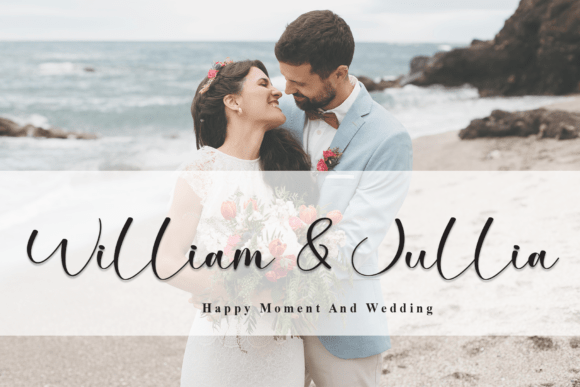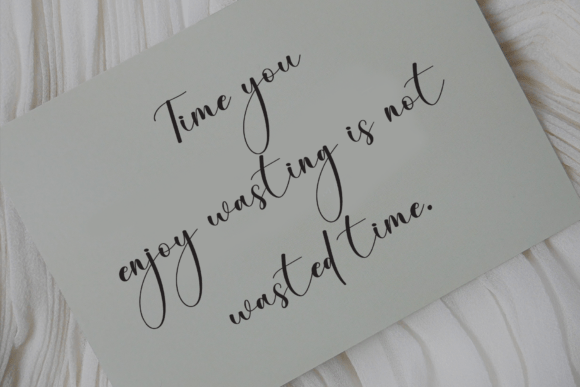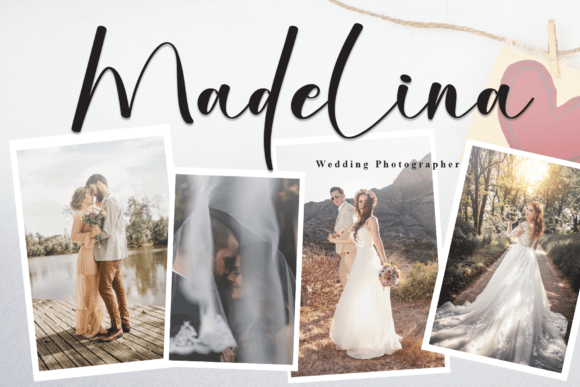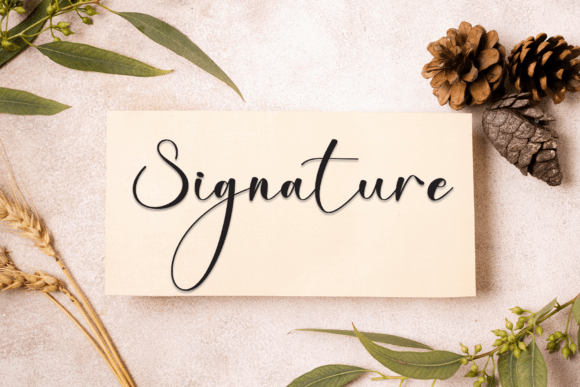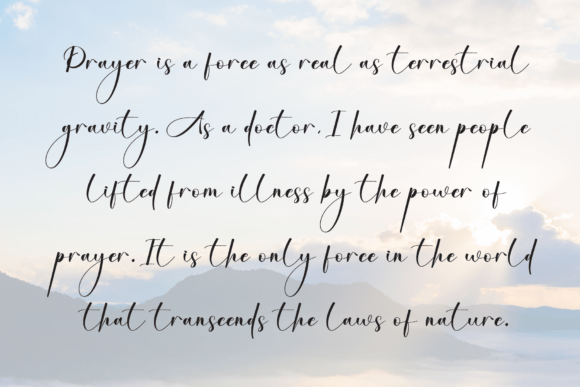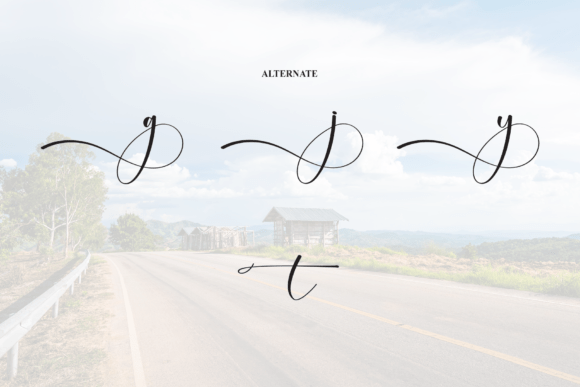
Introducing Country Font: Elevate Your Designs with Rustic Charm and Refined Aesthetics
In the world of typography, a font can make all the difference in conveying the tone and personality of a brand or design. For those seeking a unique and captivating script font that embodies the perfect blend of rustic charm and refined aesthetics, look no further than Country Font. This modern handwritten script font is designed to bring a touch of elegance and sophistication to any design project, making it an ideal choice for designers and crafters alike.
What Makes Country Font Stand Out?
Country Font boasts an array of distinctive features that set it apart from other script fonts. Its long, sweeping swashes and elegant flourishes give it a dynamic, graceful look that’s perfect for large-format applications where style matters. The font’s tall x-height and signature-style flow add to its refined appearance, making it suitable for a wide range of design projects.
One of the key benefits of Country Font is its full glyph support, including alternates and ligatures. This means that designers have complete creative control over their typography, allowing them to customize their designs with ease. Whether you’re working on a logo, poster, or wedding stationery, Country Font provides the flexibility and versatility you need to bring your vision to life.
Country Font’s unique blend of rustic charm and refined aesthetics makes it an excellent choice for a variety of design applications. Some of the most popular uses for this font include:
- Logos: Country Font’s elegant and sophisticated appearance makes it perfect for boutique brands looking to establish a strong visual identity.
- Posters: The font’s long swashes and flourishes make it ideal for eye-catching posters and flyers that demand attention.
- Country-style Merchandise: Country Font’s rustic charm and country-chic vibe make it a natural fit for merchandise such as t-shirts, mugs, and tote bags.
- Wedding Stationery: The font’s elegant and refined appearance makes it perfect for wedding invitations, save-the-date cards, and other stationery.
- Farmhouse Decor: Country Font’s rustic charm and vintage aesthetic make it an excellent choice for farmhouse decor, including signs, labels, and other home decor items.
PUA-Encoded for Effortless Customization
Country Font is PUA-encoded, ensuring effortless access to all glyphs, swashes, and alternate characters. This means that designers can easily customize their designs without having to navigate complex font menus or rely on external tools. With Country Font, you can focus on bringing your creative vision to life, rather than struggling with technical limitations.
Why Choose Country Font?
So why choose Country Font over other script fonts? Here are just a few reasons why designers and crafters love this font:
- Unique and Captivating: Country Font’s distinctive appearance sets it apart from other script fonts, making it perfect for designers looking to create unique and eye-catching designs.
- Versatile: The font’s flexibility and customizability make it suitable for a wide range of design applications, from logos and posters to wedding stationery and farmhouse decor.
- Elegant and Refined: Country Font’s elegant and refined appearance makes it perfect for designers looking to add a touch of sophistication to their designs.
- Rustic Charm: The font’s rustic charm and country-chic vibe make it a natural fit for designers looking to create designs that evoke a sense of warmth and authenticity.
In conclusion, Country Font is a modern handwritten script font that offers a unique blend of rustic charm and refined aesthetics. With its long swashes, elegant flourishes, and full glyph support, this font is perfect for designers and crafters looking to add a touch of elegance and sophistication to their designs. Whether you’re working on a logo, poster, or wedding stationery, Country Font provides the flexibility and versatility you need to bring your creative vision to life.